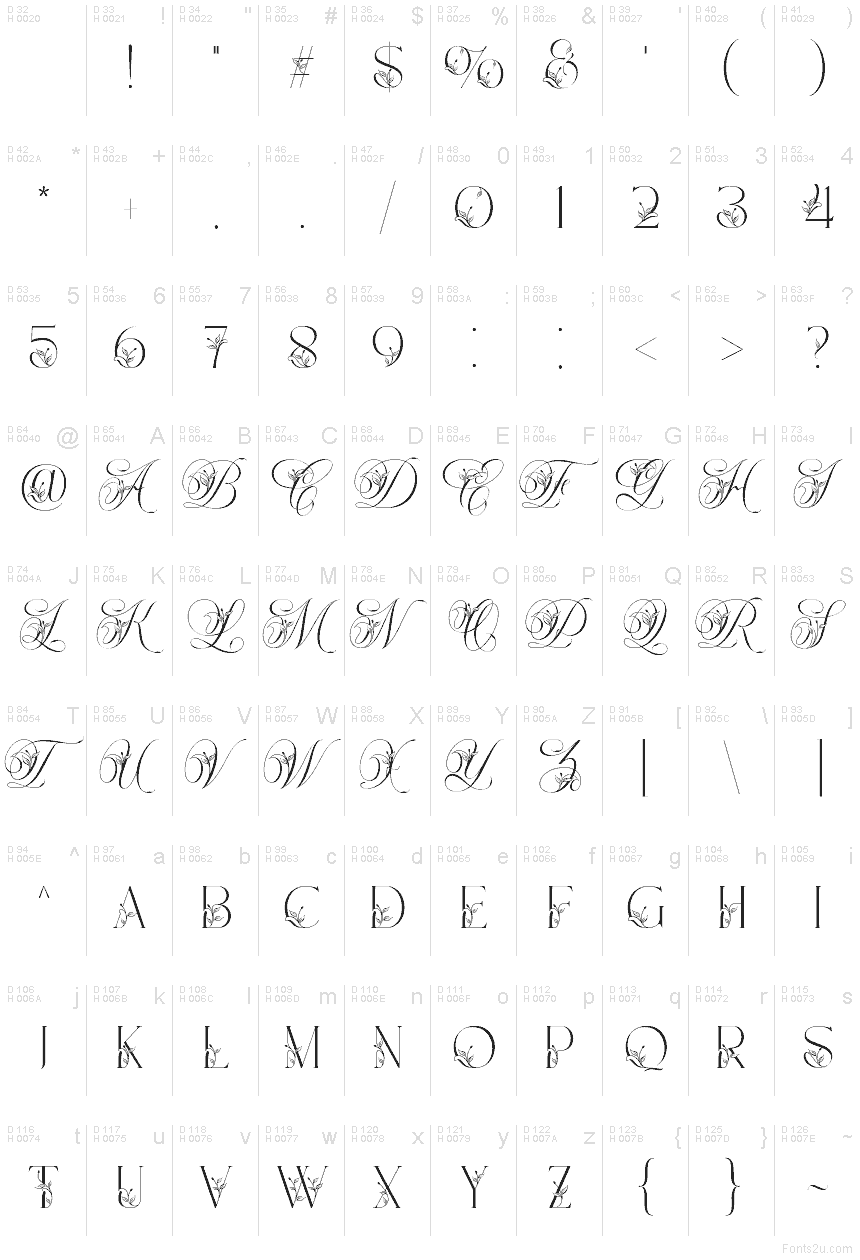
Narony Regular
Narony font by Alit Design is an exquisite free display font designed for elegance and sophistication. Intricate ornamental details resemble botanical elements presented across a modern, decorative historical influence. All caps characters maintain uniqueness with either a stylish or purely decorative approach and arched baselines, all of which are available in four different styles.